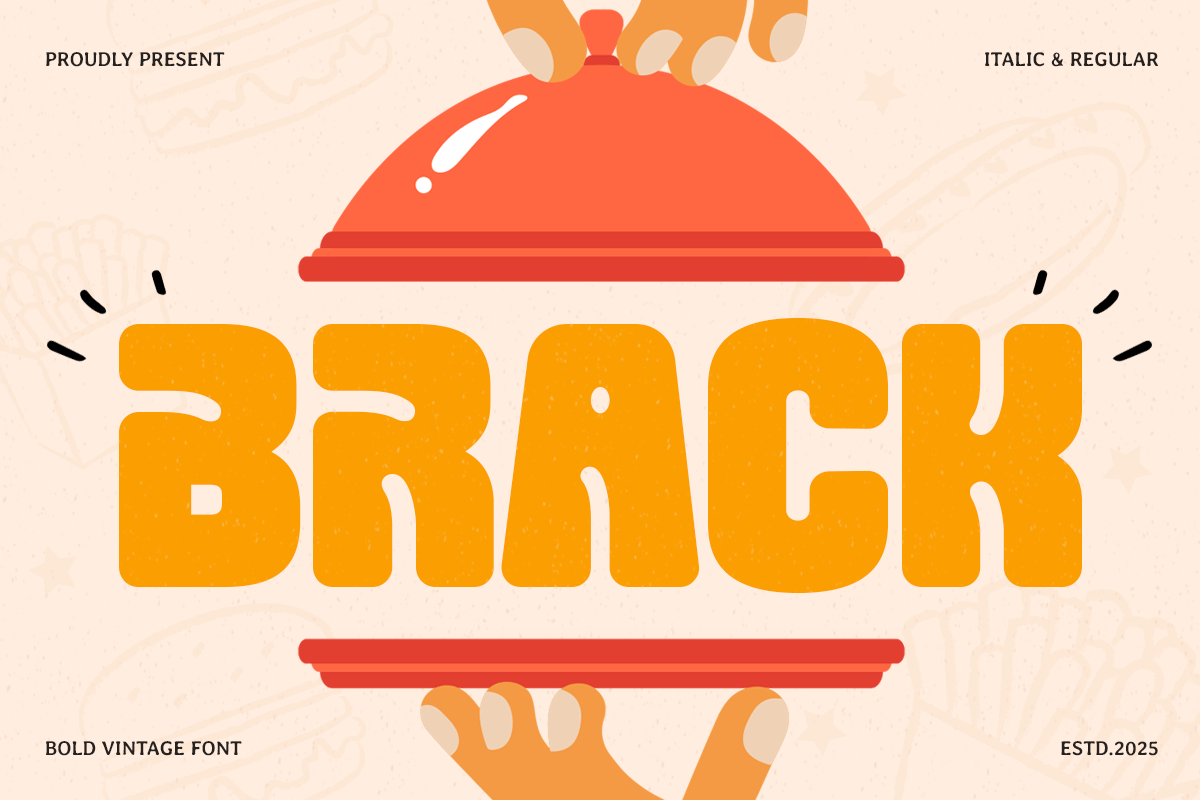
Brack
-Bold Food Vintage Font
Brack - Bold Food Vintage Font
Brack is a bold and flavorful vintage font inspired by classic food signage, retro menus, and nostalgic branding. Its strong letterforms and rustic charm make it the perfect choice for restaurants, cafés, bakeries, diners, food packaging, and menu designs.
Designed to bring a warm, handcrafted feel, Brack font combines bold strokes with subtle vintage details, ensuring a strong presence and easy readability. Whether you’re crafting a logo for a burger joint, a retro-style coffee shop menu, or nostalgic food packaging, this font delivers a deliciously classic aesthetic.
Capture the essence of vintage food culture with Brack font, a font that adds character and authenticity to any culinary-themed project.
Brack - Bold Food Vintage Font Features:
• Bold and rustic vintage typography
• Ideal for restaurant branding, café menus, and food packaging
• Punctuation, numbers, and symbols included
• Uppercase and lowercase letters
• OpenType features for enhanced customization
Give your designs a bold, nostalgic taste with Brack font—the ultimate vintage food font for retro-inspired branding.